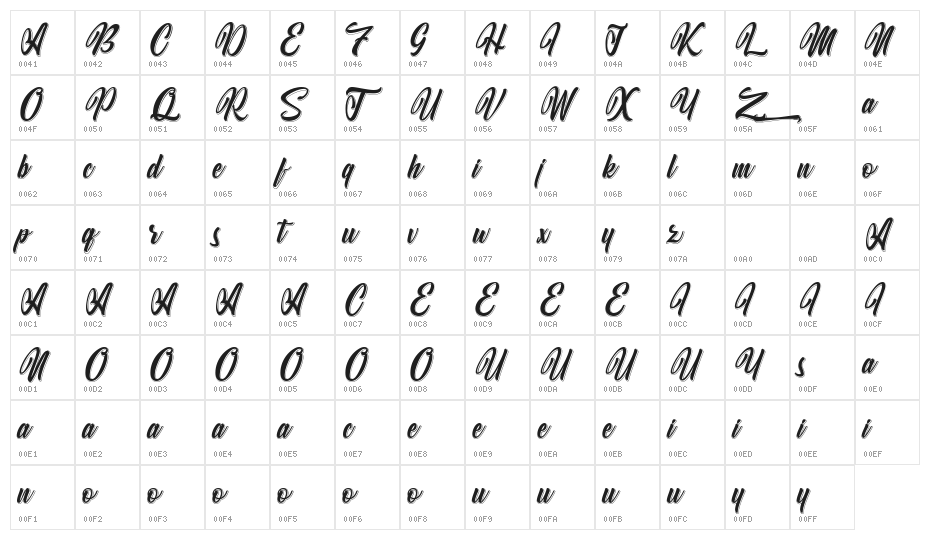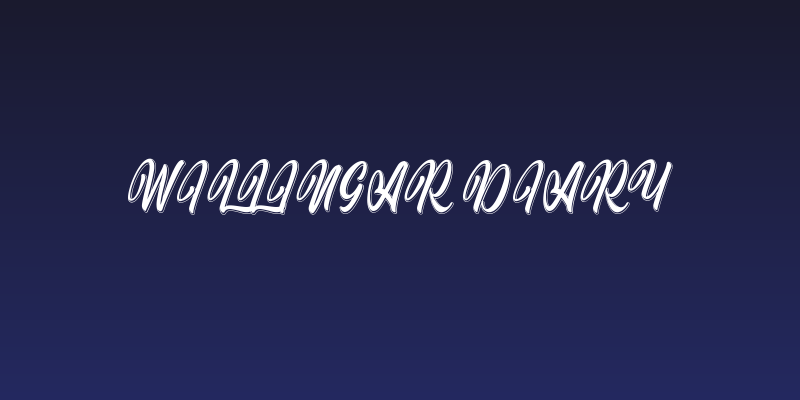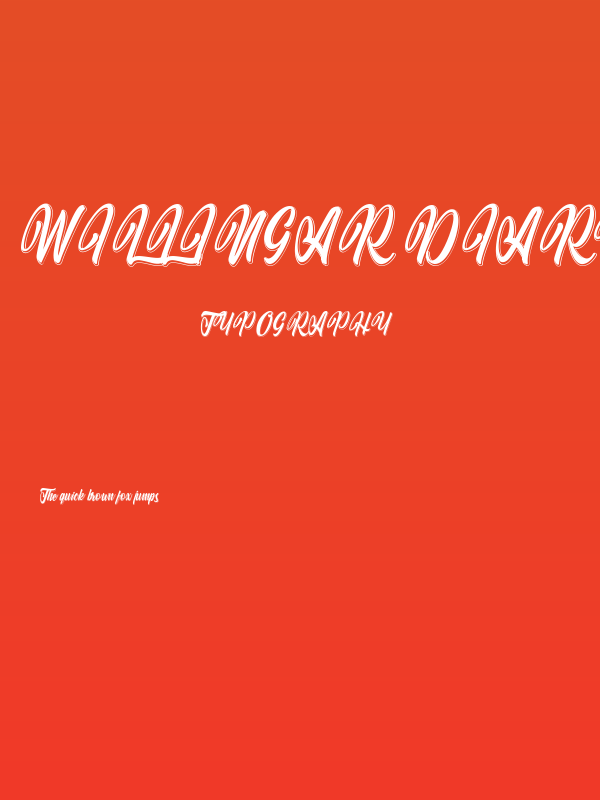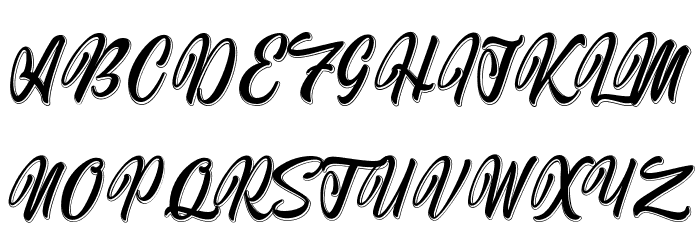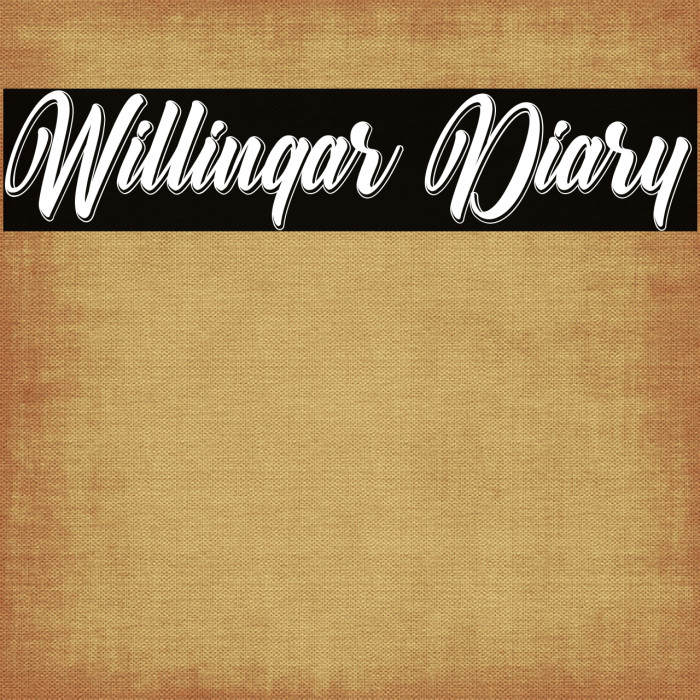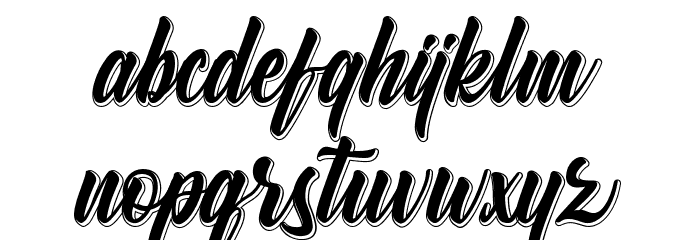
Willingar Diary Font
Willingar Diary Description
This font features a bold, dynamic script style with a modern flair. The characters are connected, giving it a flowing, cursive appearance. Each letter is crafted with a thick stroke and a shadow effect, adding depth and dimension. The uppercase letters are particularly striking, with dramatic curves and loops that enhance its decorative appeal. The lowercase letters maintain a consistent style, ensuring readability while retaining an artistic touch. This font's unique design makes it suitable for projects that require a personal, handwritten feel.
| Proposed Projects | Ideal for branding, invitations, greeting cards, and social media graphics. |